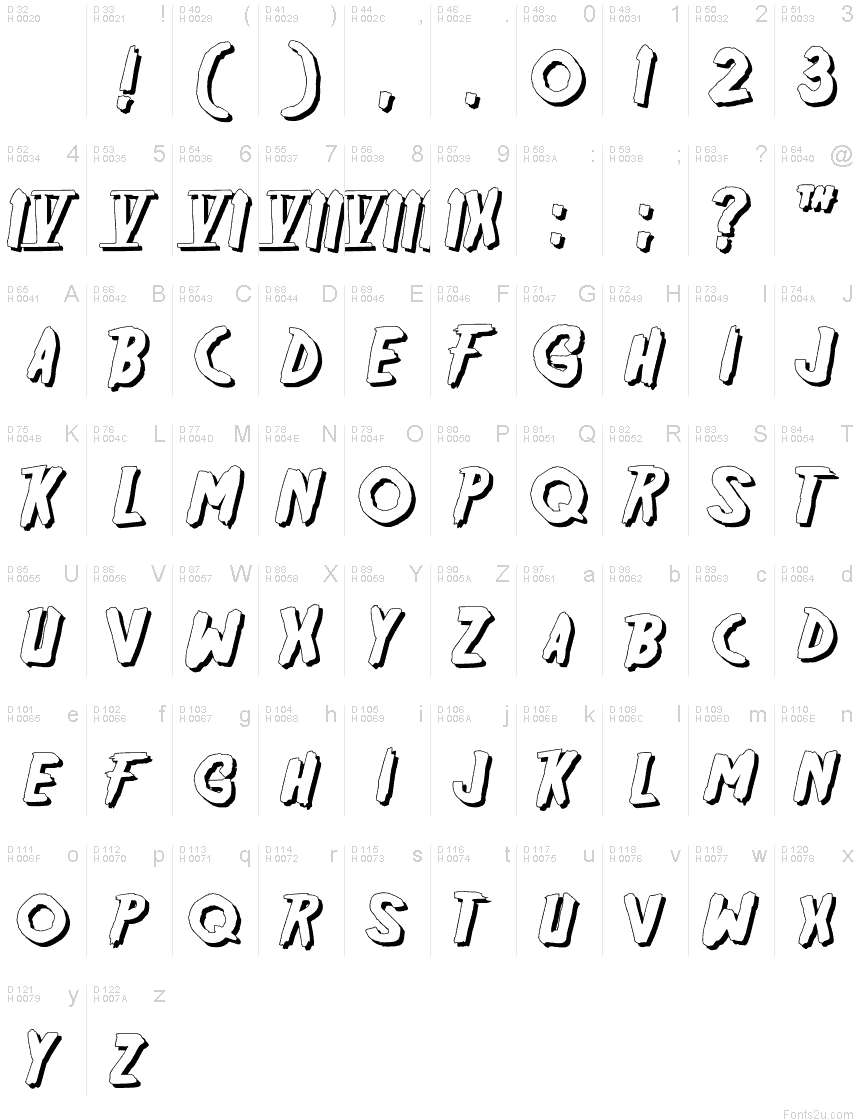
Friday13SH
Friday 13 is a display font that exudes an undeniably spooky and captivating aesthetic. Designed by Thomas W. Otto of Norfok Incredible Font Design, this font boasts a distinct 3D, horror-inspired style that immediately grabs the viewer's attention.
The bold, jagged letterforms convey a sense of unease and tension, perfectly suited for horror-themed designs, movie posters, or any project seeking to evoke a dark, unsettling mood. This font's striking visual impact and versatility make it a compelling choice for designers looking to create impactful, stylized typography that resonates with audiences seeking an edgy, bone-chilling experience.